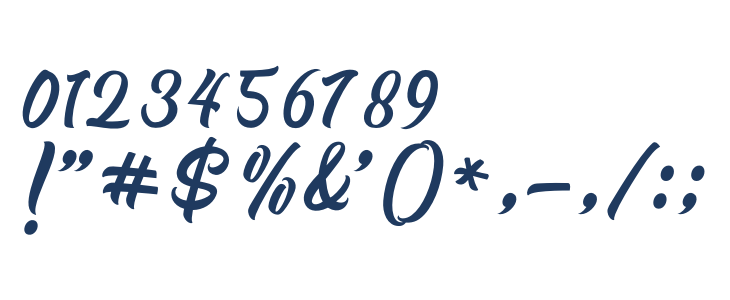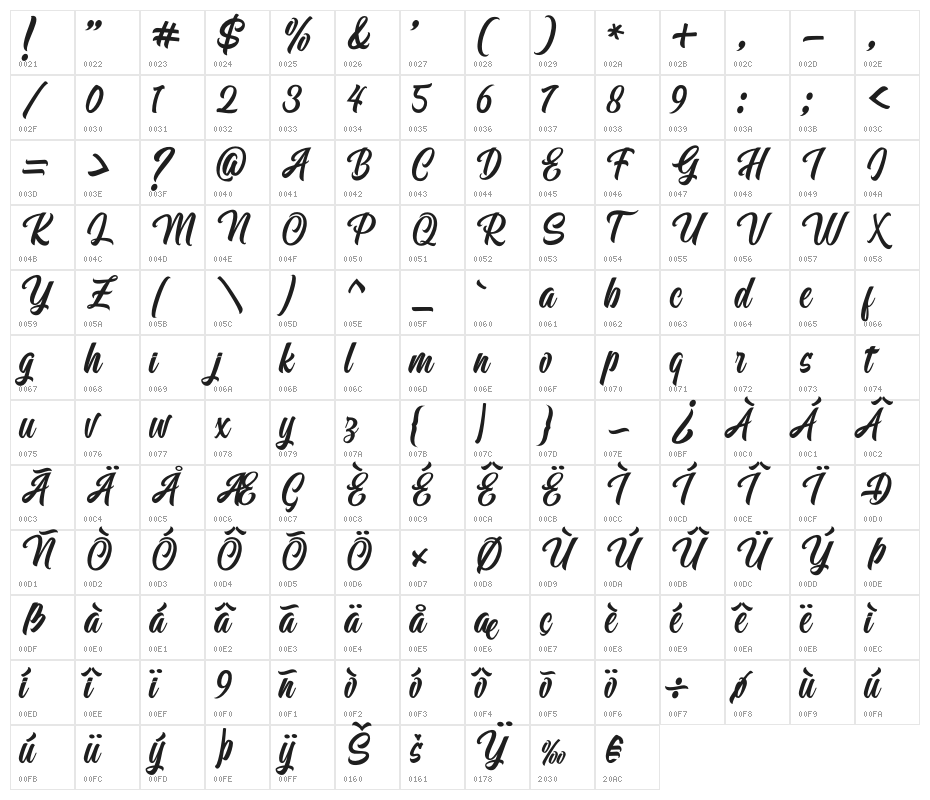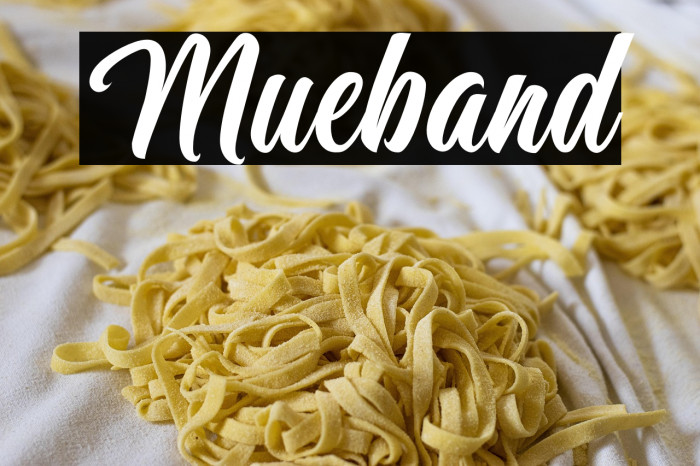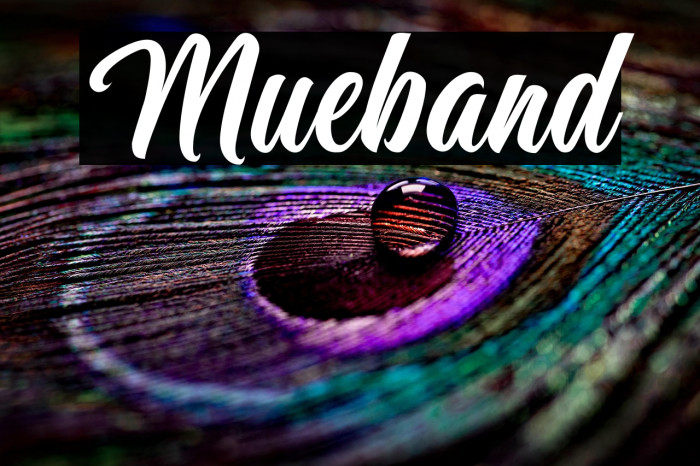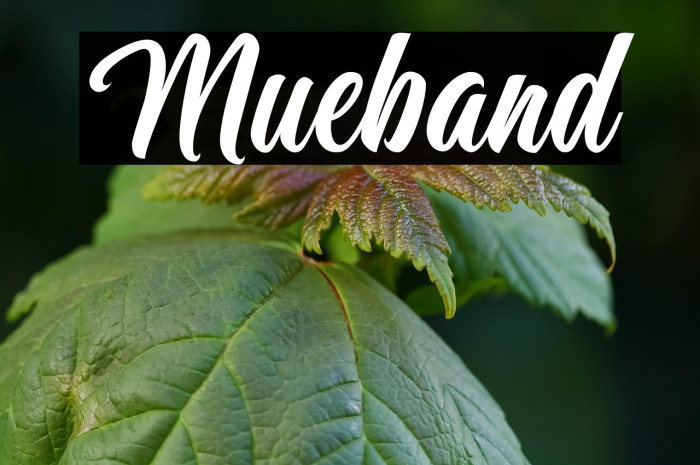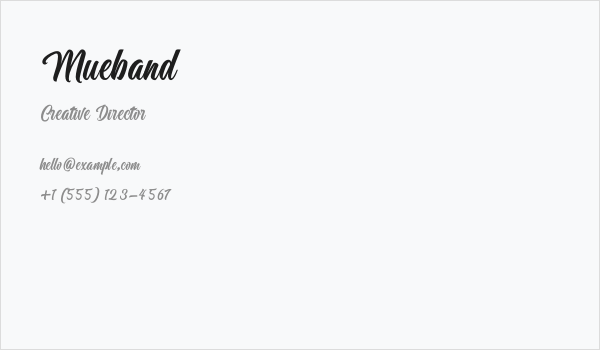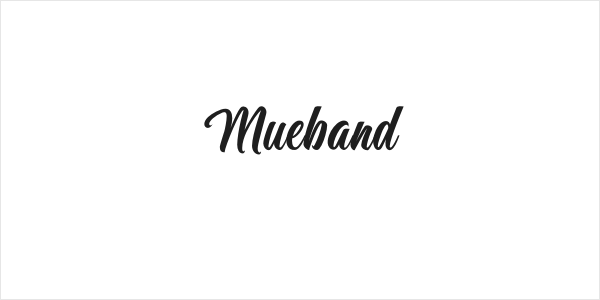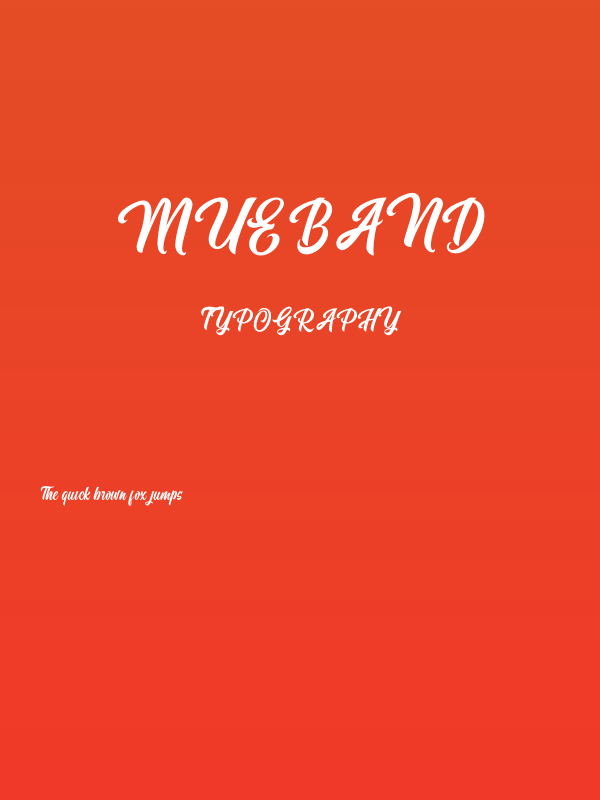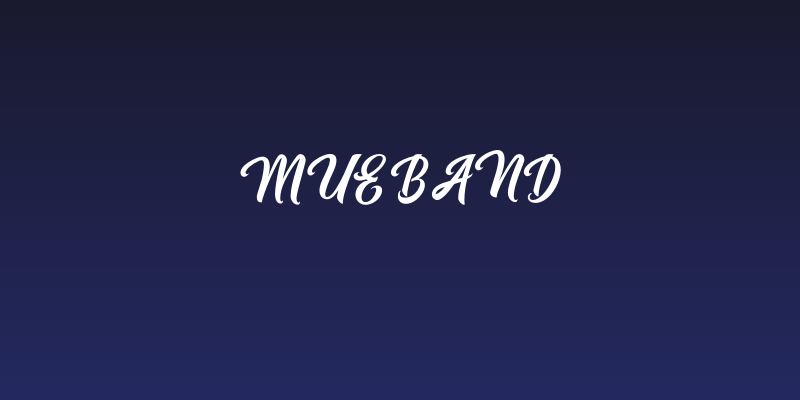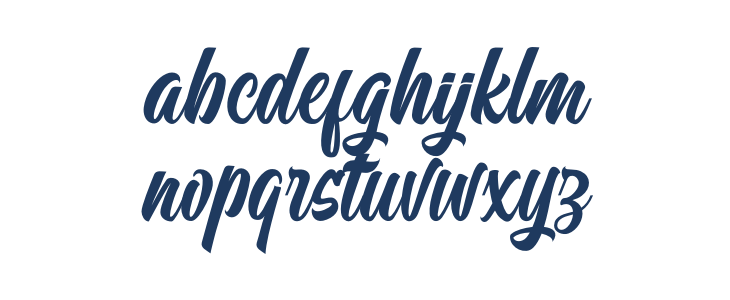
Mueband Font
Mueband Description
This font features a bold, flowing script style with a strong emphasis on cursive elements. The uppercase letters are elegantly crafted with sweeping curves and a consistent slant, giving a sense of motion and fluidity. The lowercase letters maintain this fluidity, with some characters featuring distinctive loops and flourishes. The numerals are equally stylized, maintaining the overall aesthetic of the font. Special characters are well-integrated, ensuring a cohesive look across all text. This font is ideal for projects that require a touch of elegance and sophistication, such as invitations, branding, and decorative headings.